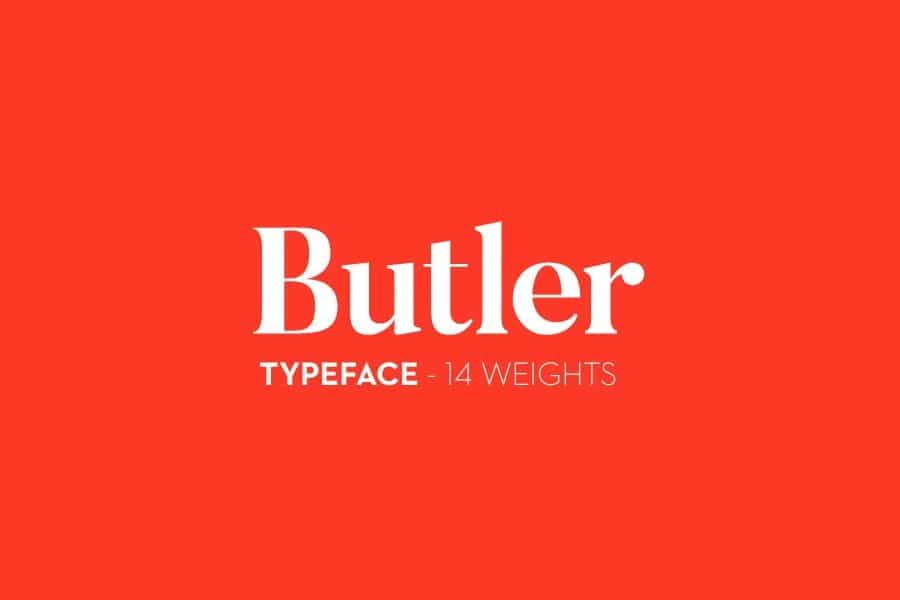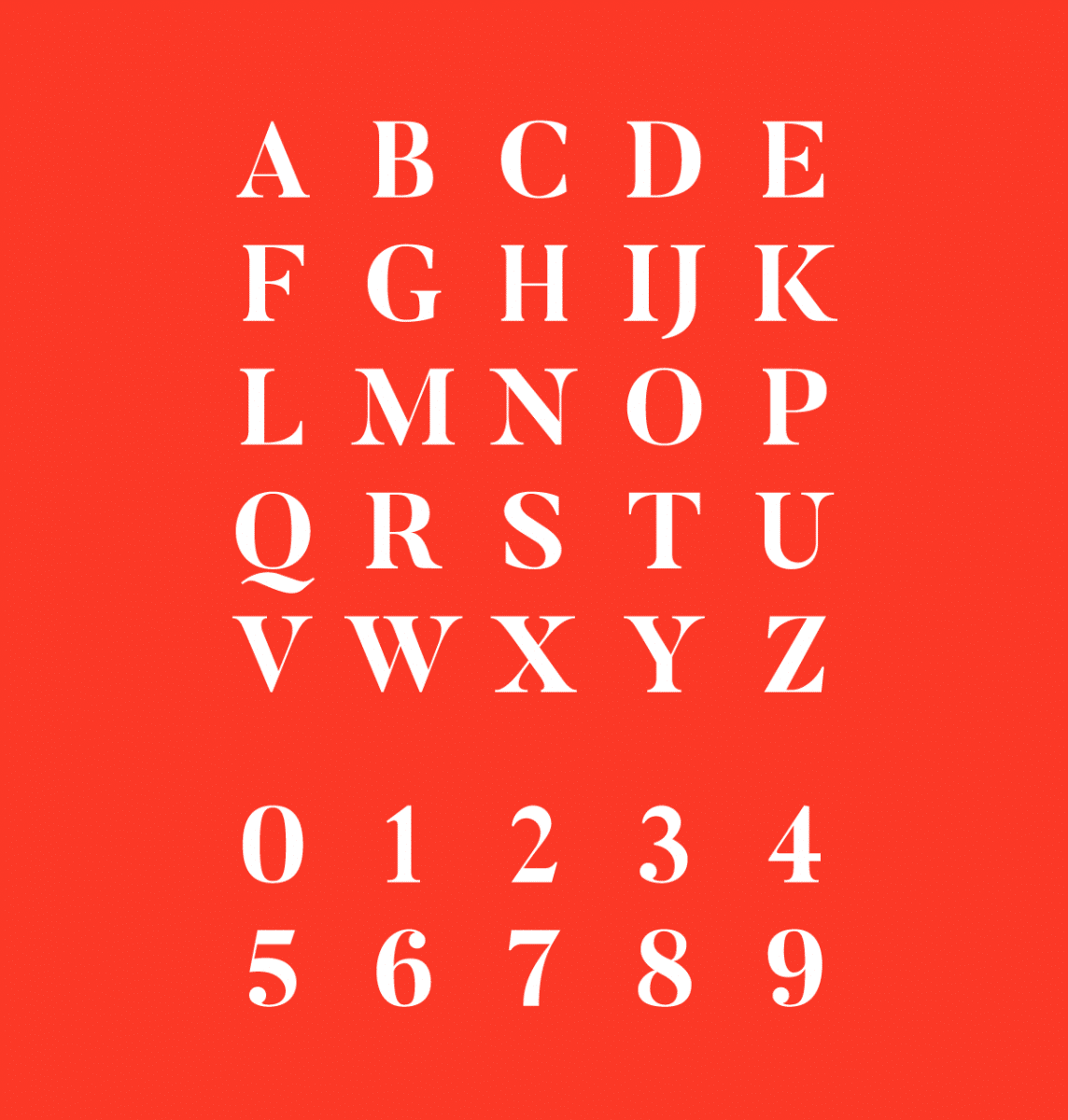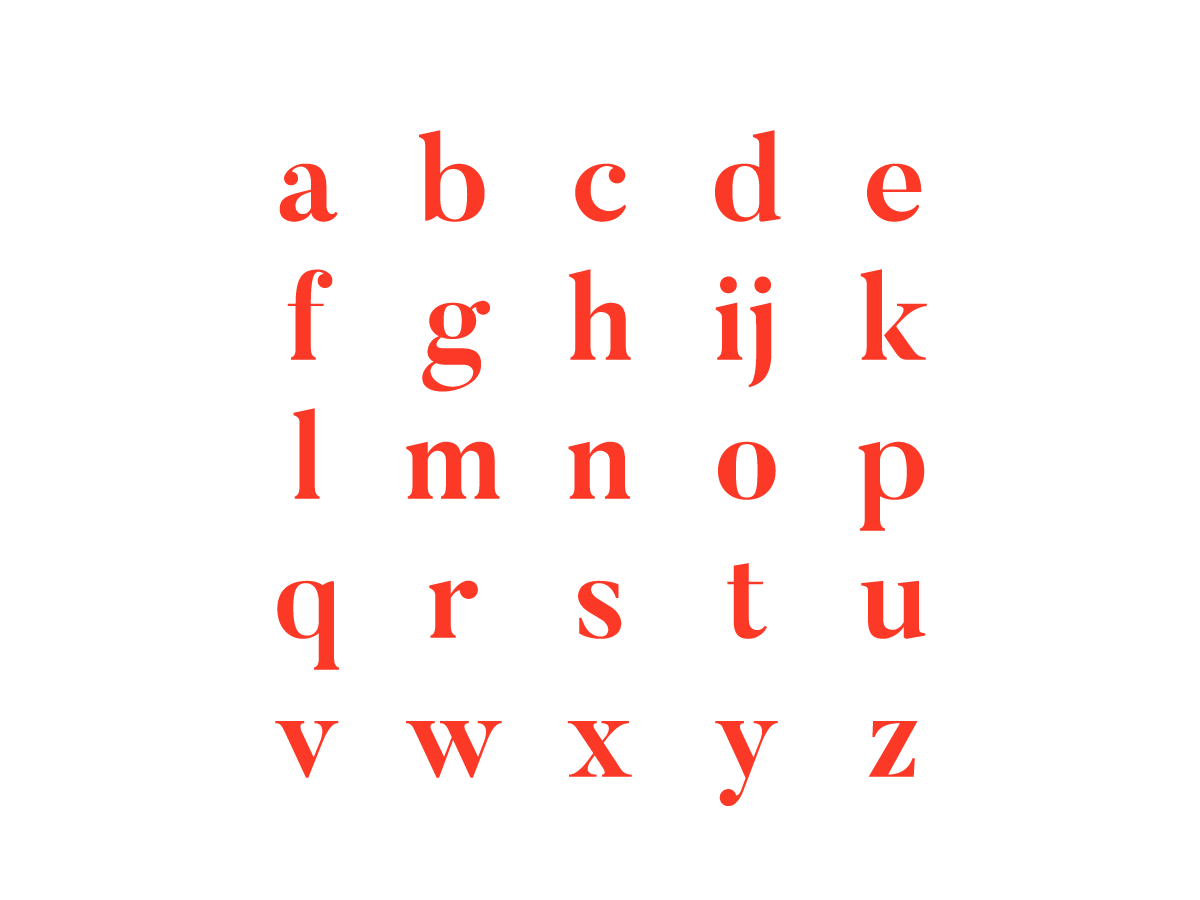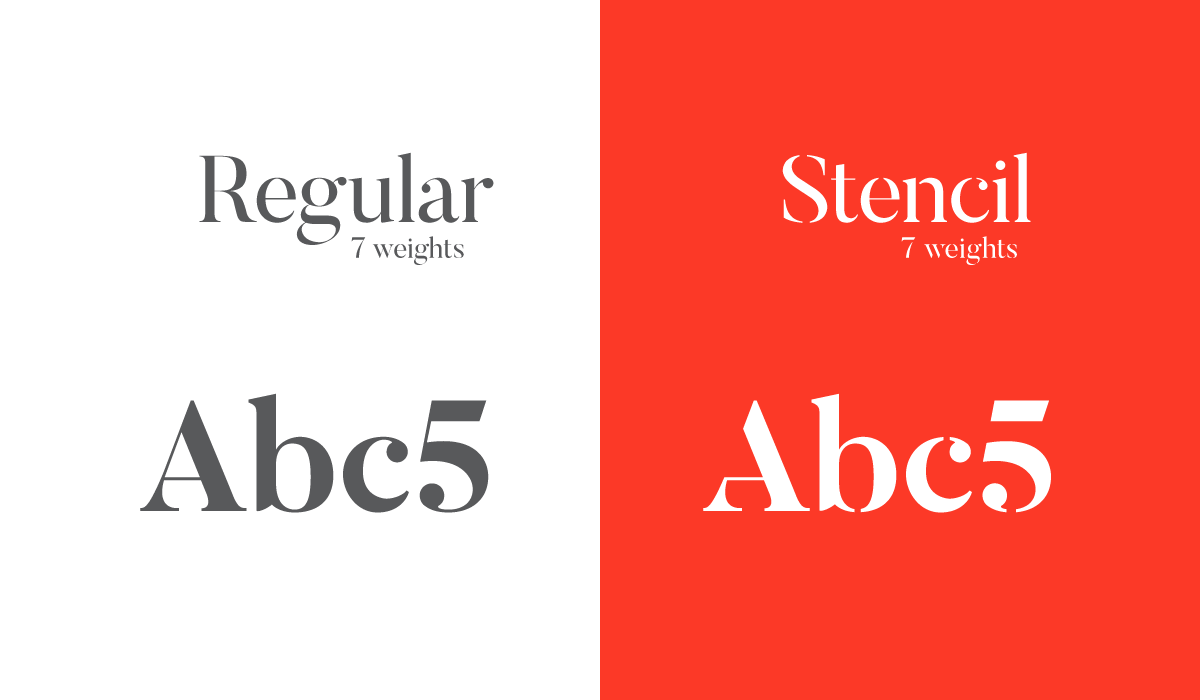
Butler Font
Butler Font is a free serif typeface inspired by a mix between both Dala Floda & the amazing Bodoni family, designed by Fabian De Smet. The main goal was to bring a bit of modernism to serif fonts by working on the curves of classical serif fonts and adding an extra alternate stencil-like serif family.
The whole Butler family contains a total of 334 characters, 7 regular weights and 7 stencil weights, text figures, ligatures, fractions and a lot more. It also suits many different languages with its added glyphs. Great for posters, very big titles, books & fancy stuff, the highly contrasted butler typeface is pleased to be at your service.